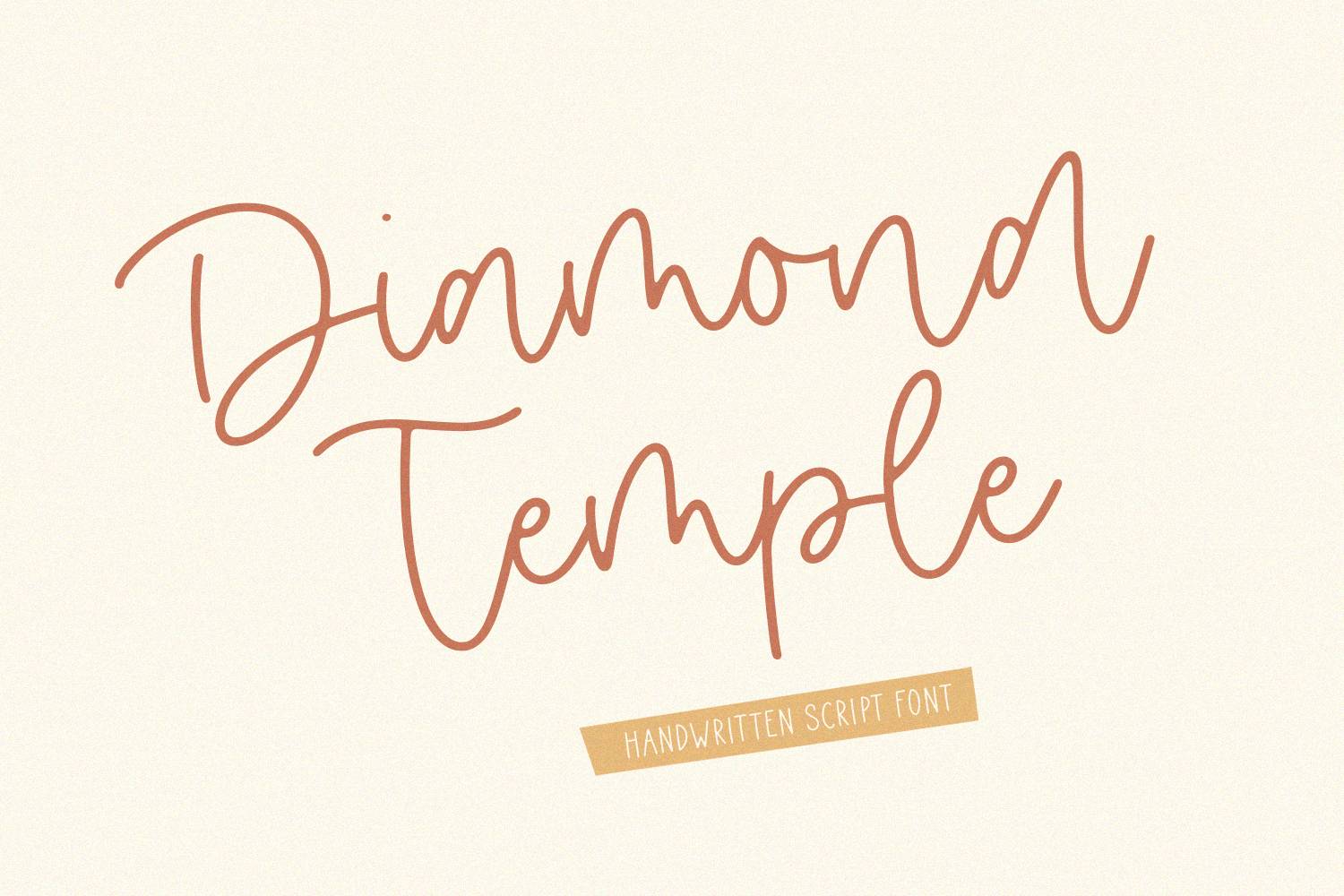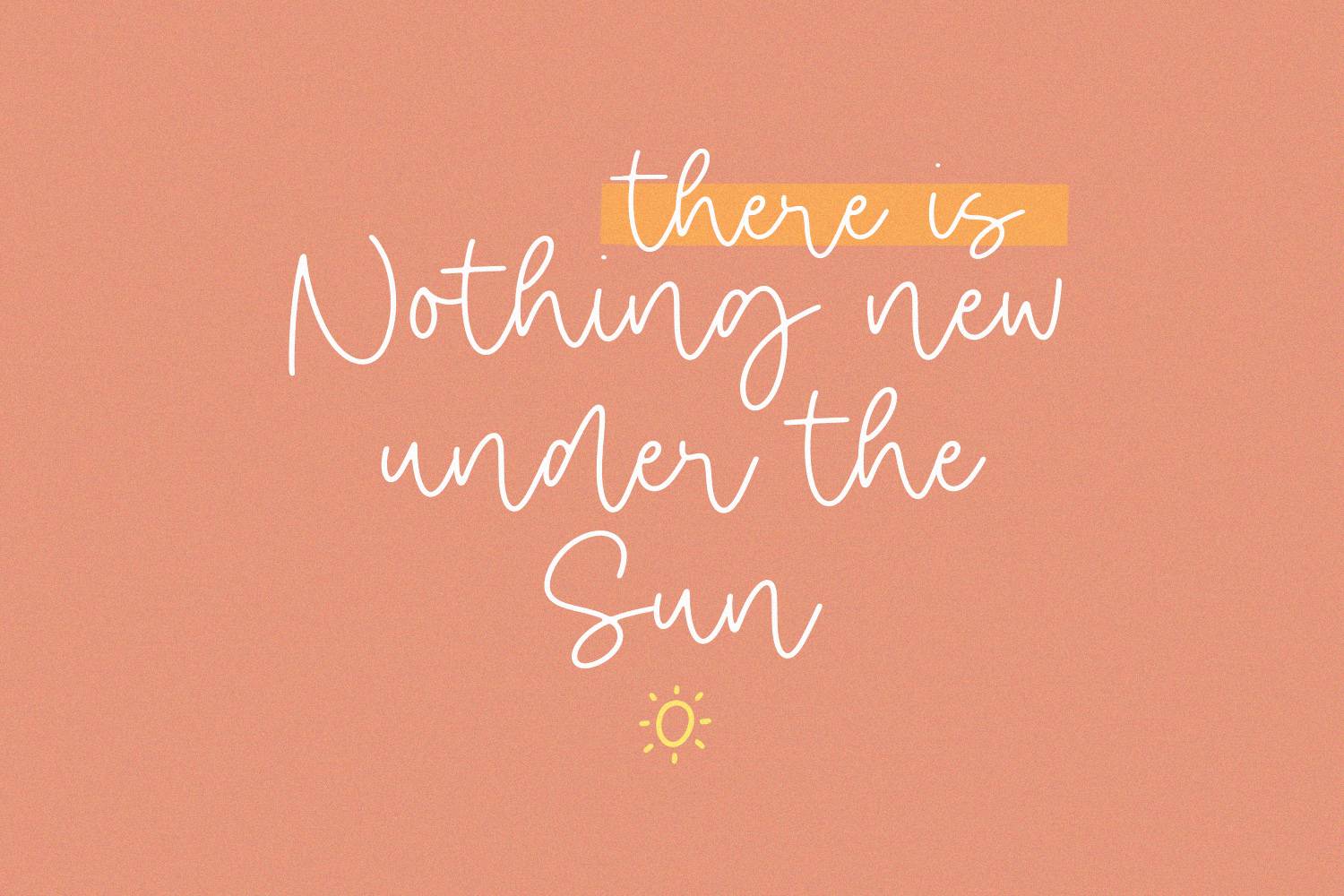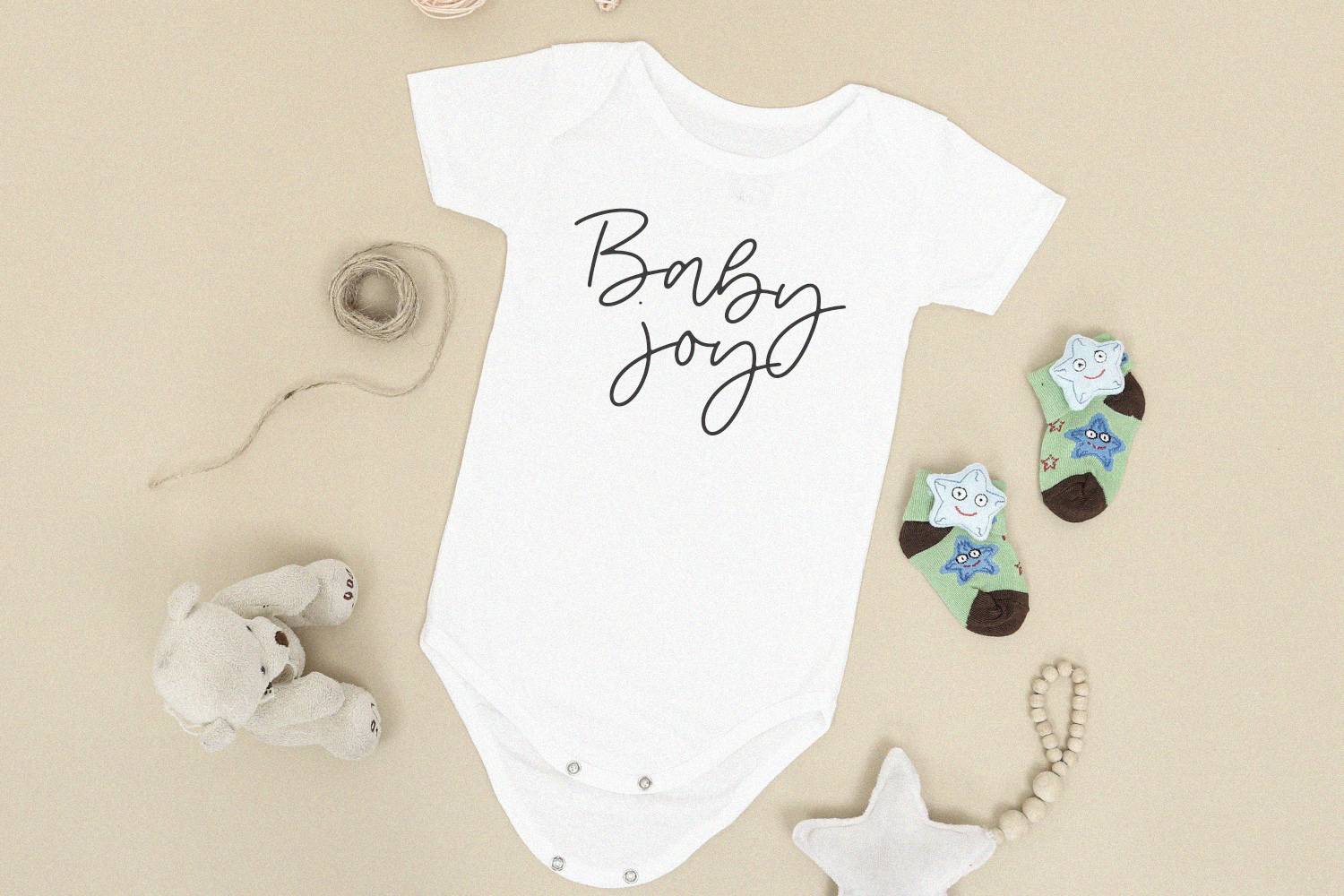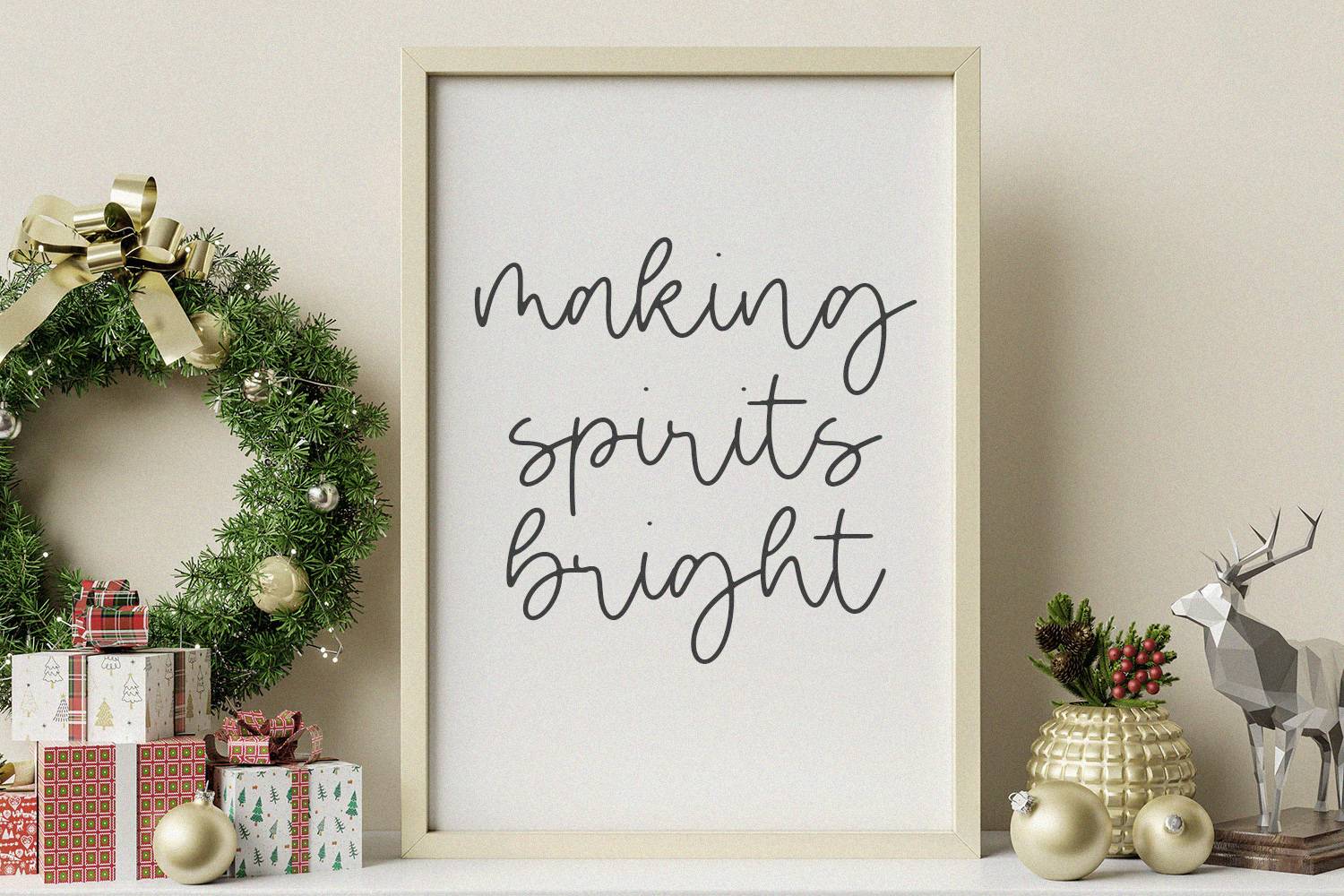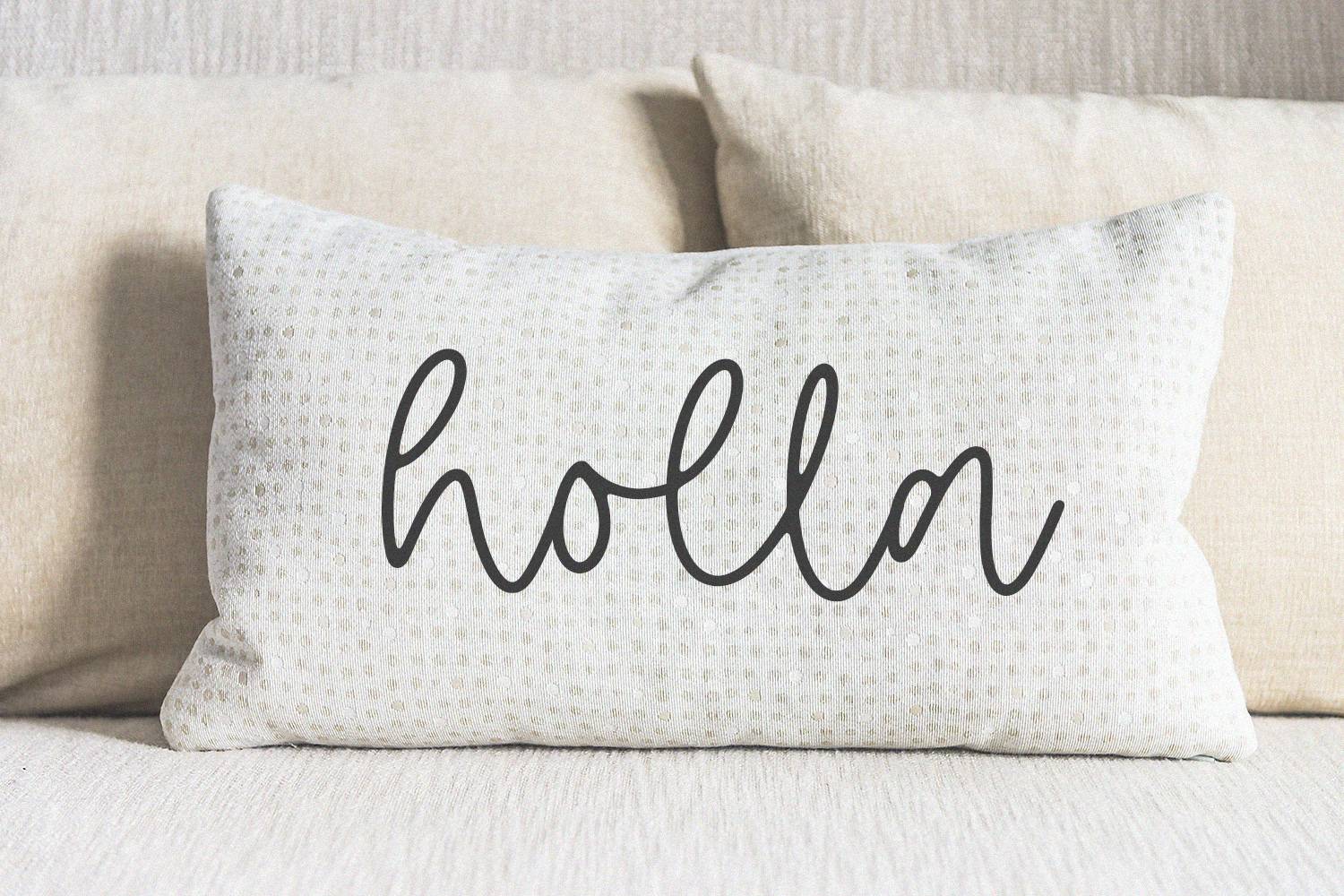
Diamond Temple is a delicate, hand-drawn script font with a casual and airy feel, characterized by slender strokes and natural, flowing letterforms. Its light weight and playful style make it an excellent choice for creative branding, invitations, and feminine designs where a personal, approachable touch is desired. This font works best in headlines or display uses, bringing a warm and friendly charm to modern, informal projects.
Diamond Temple Font